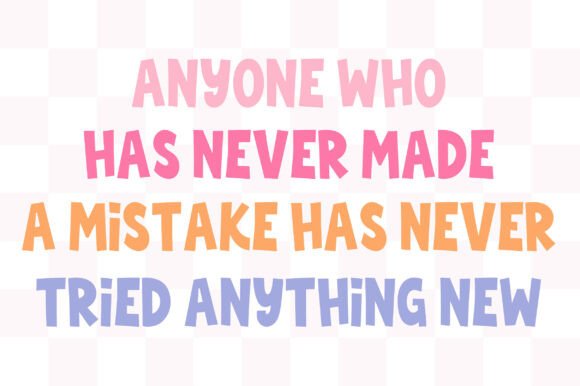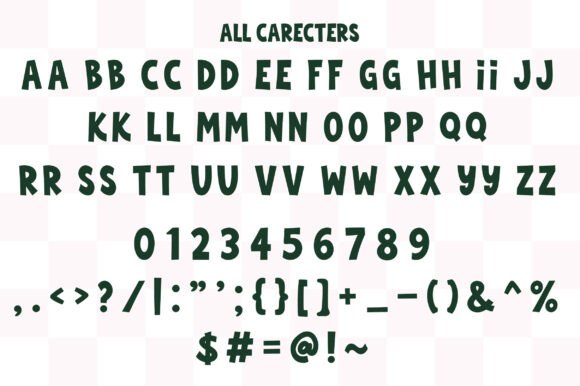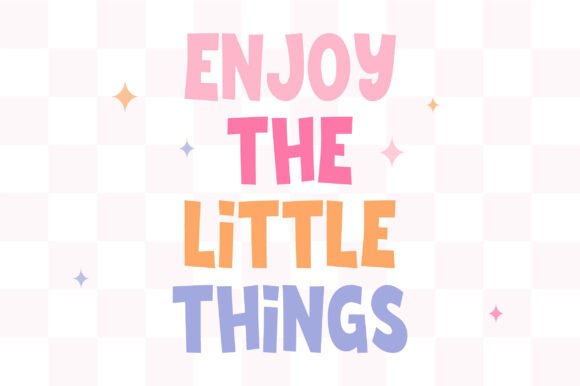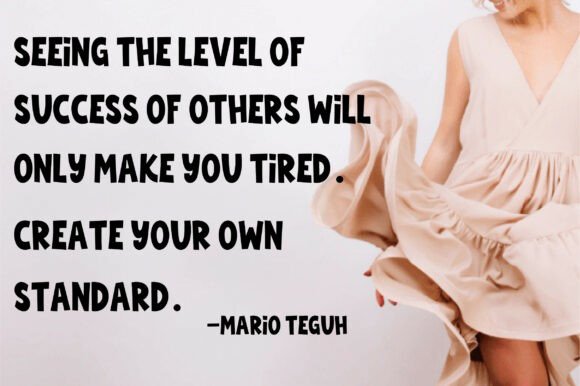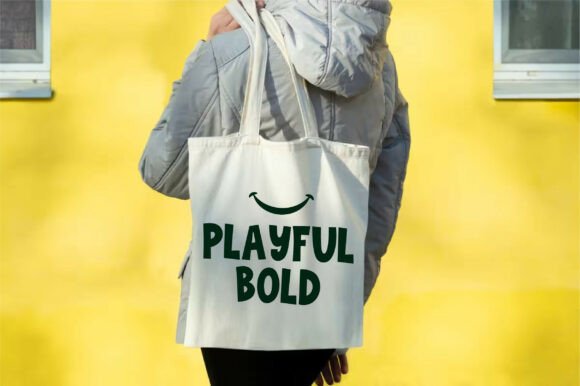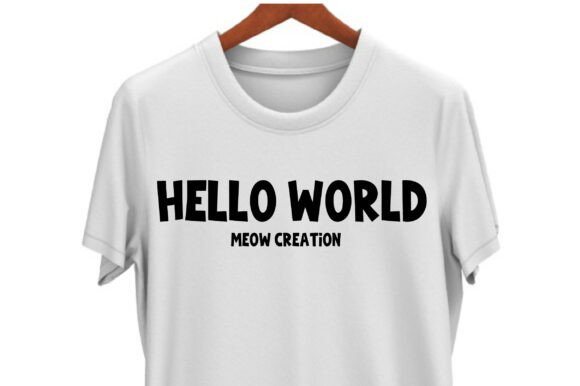
Introduction to Playful Bold Font
Playful Bold is a cute and bold display font with a fun, playful style.
Its chunky shapes and smooth curves make it perfect for eye-catching designs like t-shirts, quotes, posters, and branding Designed to stand out while keeping a friendly and modern look.
Key Features of Playful Bold Font